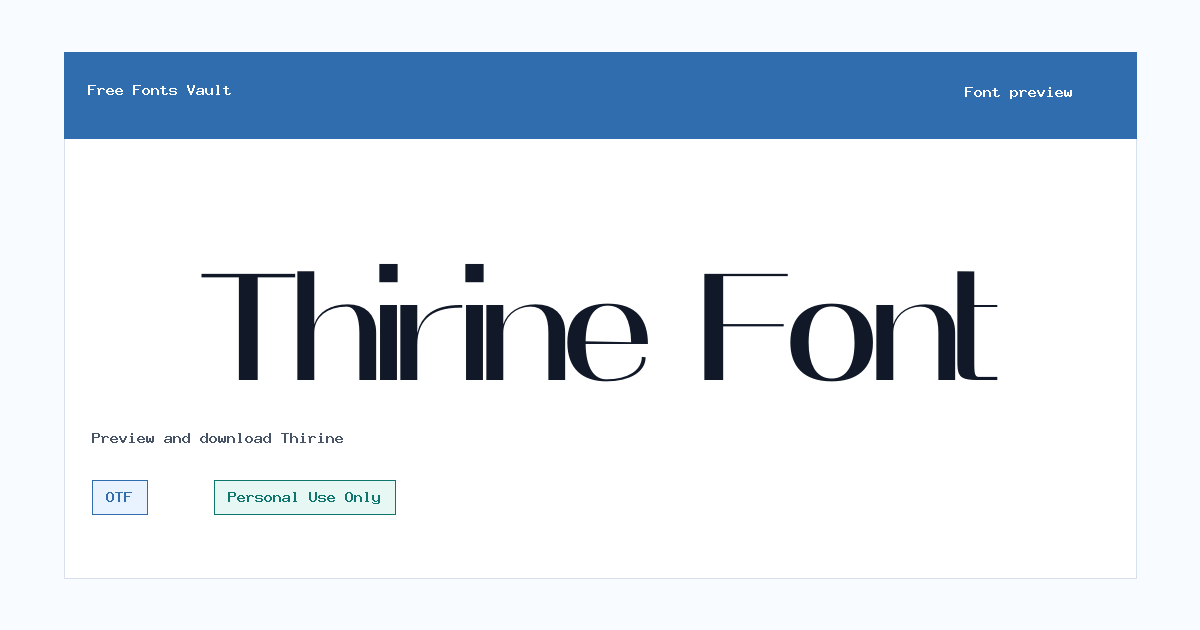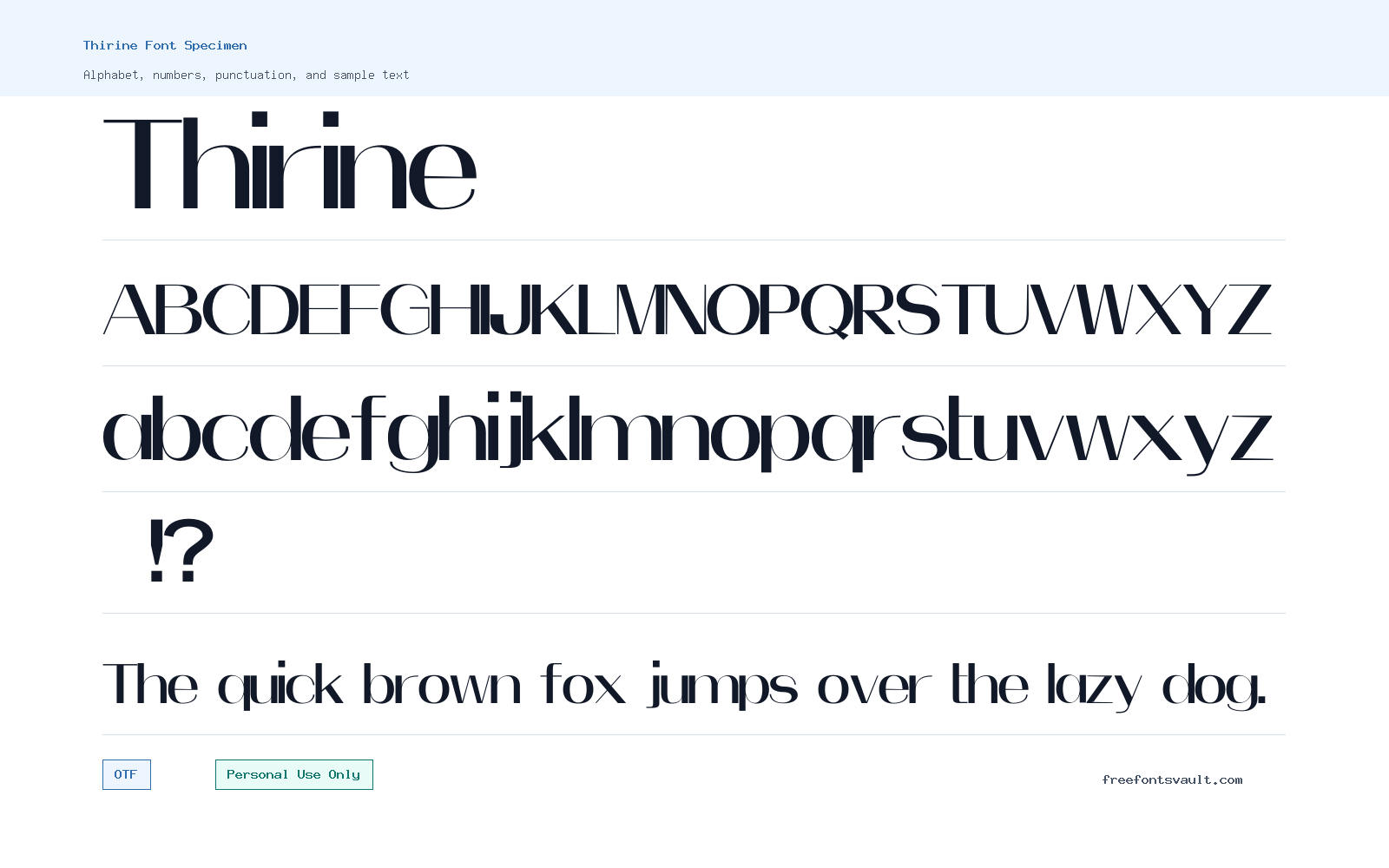
Thirine
Thirine font.
Thirine is a sans serif font with a clean, straightforward look that works best when you need simple lettering for personal design work. Use the preview tool to test your own words before downloading, especially if you plan to use it for titles, short labels, or display text.
About Thirine Font
Thirine keeps the structure of a basic sans serif while offering a neat, modern appearance for everyday visual projects. Because the available style is a regular weight, it is easiest to use in clean headings, name displays, social graphics, quote cards, personal posters, and simple branding mockups. It does not rely on decorative flourishes, so the focus stays on the words rather than on heavy styling. That makes it useful when you want a plain but polished type choice for short pieces of text.
Before using Thirine in a finished design, try it in the live preview with the exact text you need. Test both uppercase and lowercase letters, check spacing between tricky letter pairs, and view it at the size you expect to use. A regular sans serif can look sharp in large titles but may need extra line spacing in longer paragraphs. If your design has a lot of body copy, pair Thirine with a comfortable reading font and keep Thirine for headings, captions, buttons, or short callouts. For contrast, it can sit well beside a serif text face, a soft script accent, or a more neutral sans serif used only for paragraphs. Keep the layout simple so the font’s clean shape can do its job without competing with too many effects.
- Regular-weight sans serif style suitable for clean personal design layouts
- Personal posters, quote graphics, headings, and social media images
- Simple title treatments, labels, mockups, and short display text
What kind of font is Thirine?
Thirine is listed as a sans serif font. The available file is a regular style, which makes it most practical for clean titles, short text, and simple design layouts.
Where should I use Thirine?
Use it in personal projects such as posters, social posts, name graphics, headings, labels, and mockups. Test longer text carefully, because a font that works well for titles may not always be the best choice for paragraph reading.
How should I pair Thirine with other fonts?
Pair it with a readable serif or neutral sans serif for body text, then use Thirine for headings or short highlights. Avoid using too many display fonts together, as that can make the layout feel crowded.